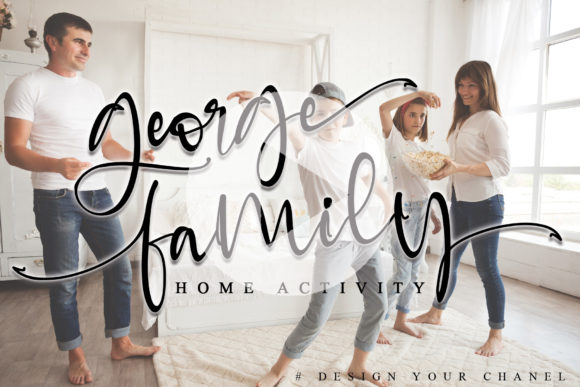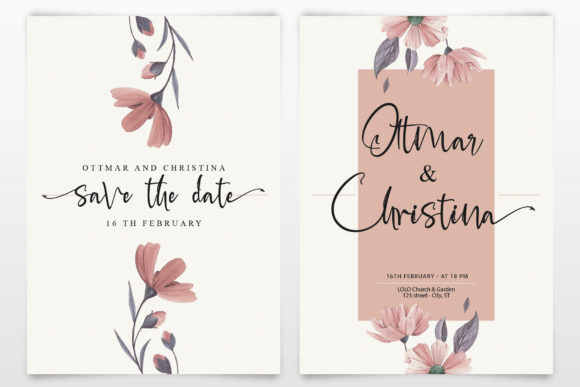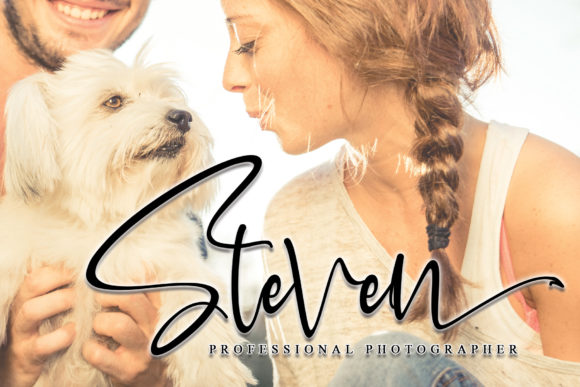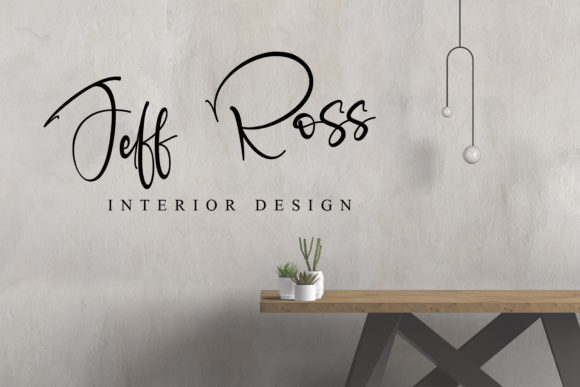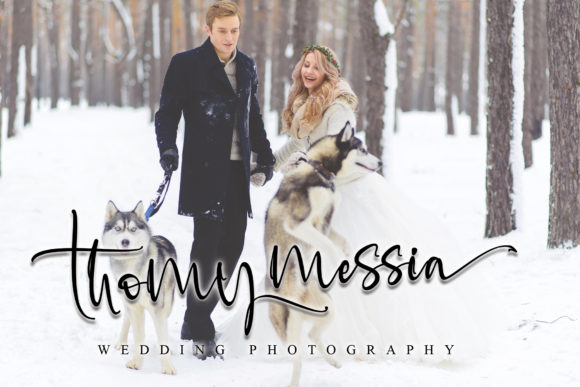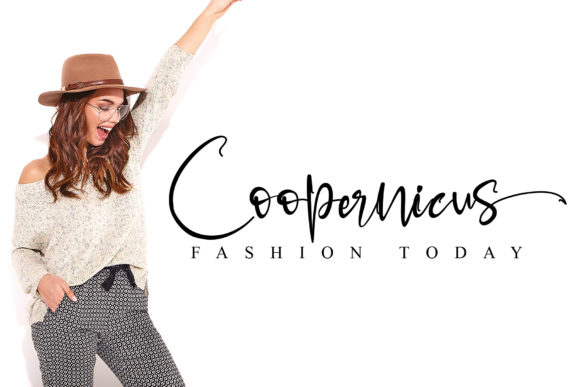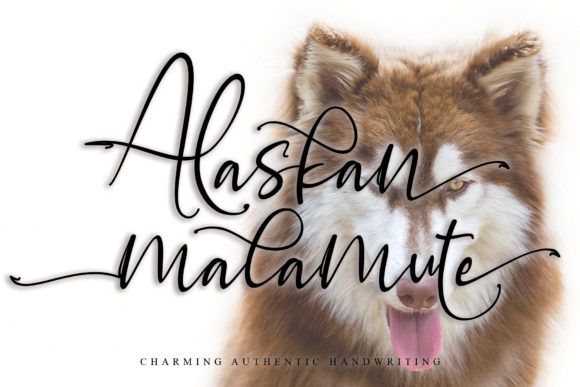
Introducing Alaskan Malamute Font: A Charming Authentic Handwriting Font
Are you a designer or crafter looking for a unique and elegant font to elevate your designs? Look no further than the Alaskan Malamute font, a beautiful combination of timeless elegance and authentic calligraphy. This charming authentic handwriting font is perfect for making original and outstanding designs that stand out from the crowd.
What Makes Alaskan Malamute Font Special?
The Alaskan Malamute font is a stunning example of handwriting typography, with a unique and authentic feel that is sure to capture the attention of your audience. This font is designed to provide a touch of elegance and sophistication to your designs, making it perfect for a wide range of projects, from wedding invitations and branding materials to packaging and advertising.
PUA Encoding for Easy Access to Glyphs and Swashes
One of the standout features of the Alaskan Malamute font is its PUA (Private Use Area) encoding, which allows you to access all of the cute glyphs and swashes with ease. This means that you can add a touch of personality and whimsy to your designs, setting them apart from the standard fonts and giving them a unique and eye-catching feel.
Special Features for Endless Design Possibilities
In addition to its PUA encoding, the Alaskan Malamute font also features a wealth of special features, including alternate glyphs and ligatures. These features provide endless design possibilities, allowing you to experiment with different styles and combinations to create a truly one-of-a-kind look.
Whether you’re a professional designer or a crafter looking to add a personal touch to your projects, the Alaskan Malamute font is the perfect choice. Its unique and authentic feel makes it ideal for a wide range of projects, from handmade cards and invitations to branding and advertising materials.
Timeless Elegance and Authentic Calligraphy
The Alaskan Malamute font combines timeless elegance with authentic calligraphy, creating a truly stunning effect. This font is perfect for designers and crafters who want to add a touch of sophistication and refinement to their projects, without sacrificing personality and whimsy.
Why Choose Alaskan Malamute Font?
So why choose the Alaskan Malamute font for your next project? Here are just a few reasons:
- Unique and authentic feel: The Alaskan Malamute font has a one-of-a-kind feel that’s sure to capture the attention of your audience.
- PUA encoding: Easily access all of the cute glyphs and swashes with PUA encoding.
- Special features: Alternate glyphs and ligatures provide endless design possibilities.
- Perfect for designers and crafters: Ideal for a wide range of projects, from handmade cards to branding and advertising materials.
- Timeless elegance and authentic calligraphy: A beautiful combination of sophistication and personality.
Get Creative with Alaskan Malamute Font
With the Alaskan Malamute font, the design possibilities are endless. Here are a few ideas to get you started:
- Wedding invitations and stationery: Add a touch of elegance and sophistication to your wedding stationery with the Alaskan Malamute font.
- Branding and advertising: Use the Alaskan Malamute font to create eye-catching branding and advertising materials that stand out from the crowd.
- Packaging design: Add a personal touch to your packaging design with the Alaskan Malamute font.
- Handmade cards and invitations: Use the Alaskan Malamute font to create one-of-a-kind handmade cards and invitations.
In conclusion, the Alaskan Malamute font is a charming authentic handwriting font that’s perfect for designers and crafters looking to add a touch of elegance and sophistication to their projects. With its PUA encoding, special features, and timeless elegance, this font is sure to become a favorite in your design arsenal.